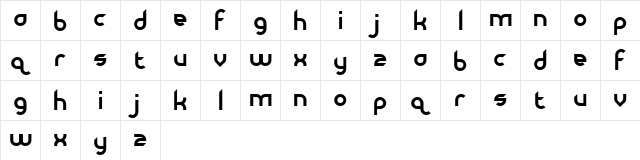
Dirty Flamingo Dirty Flamingo
| Foundry | defaulterror |
| Designer | Derek Clark |
Design Context for Dirty Flamingo Typeface
Dirty Flamingo offers clean, dependable letterforms without strong stylistic allegiance, making it a practical choice for designers who need flexibility.